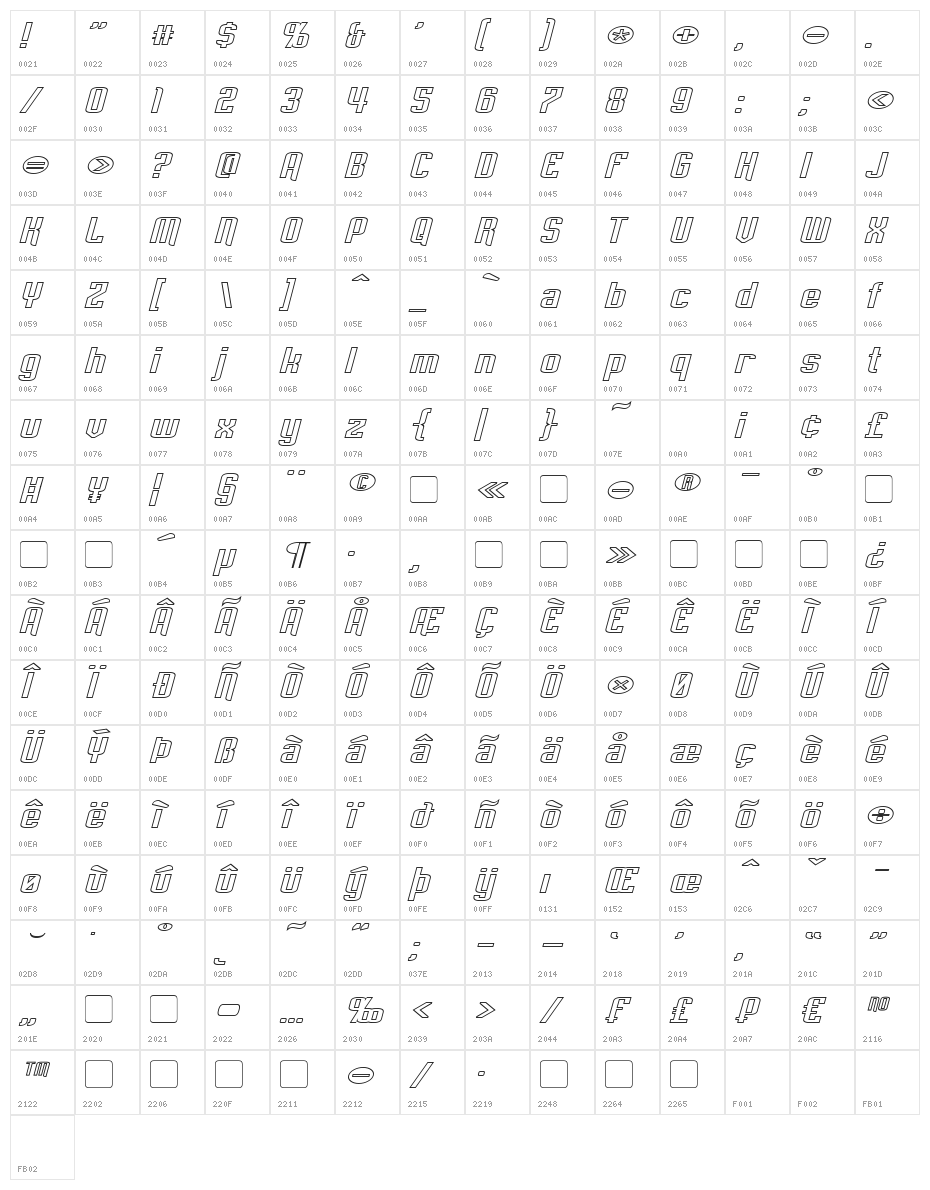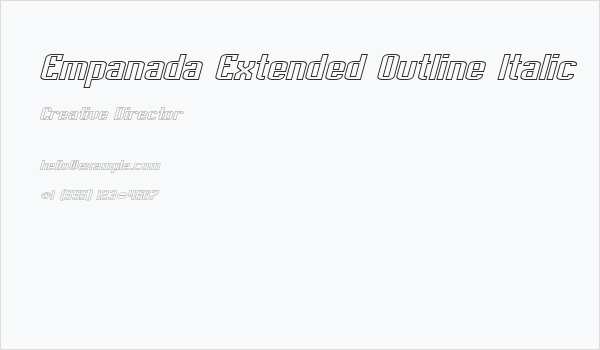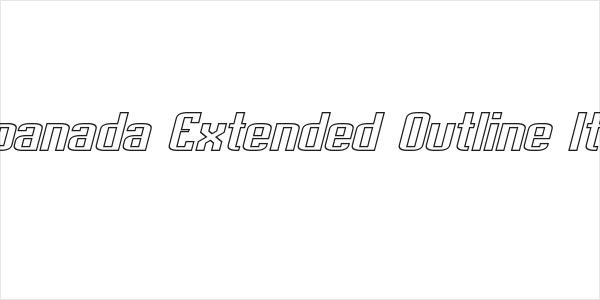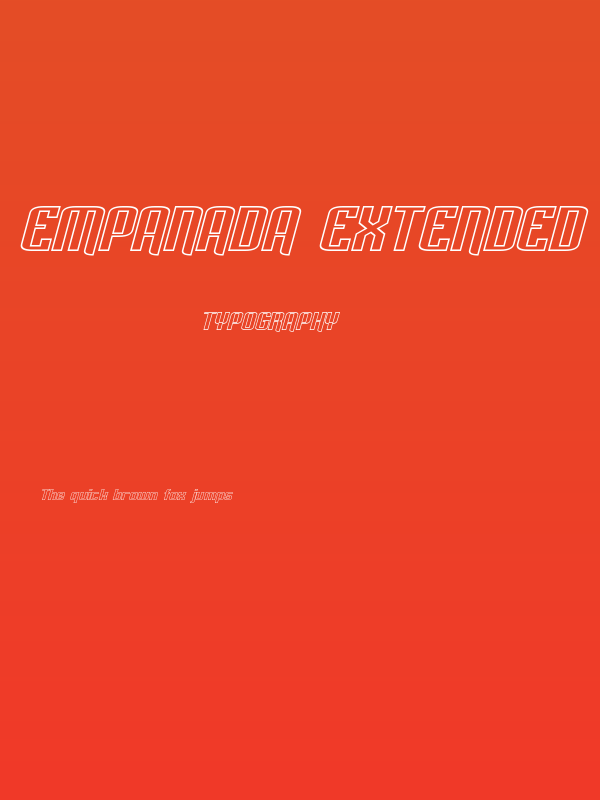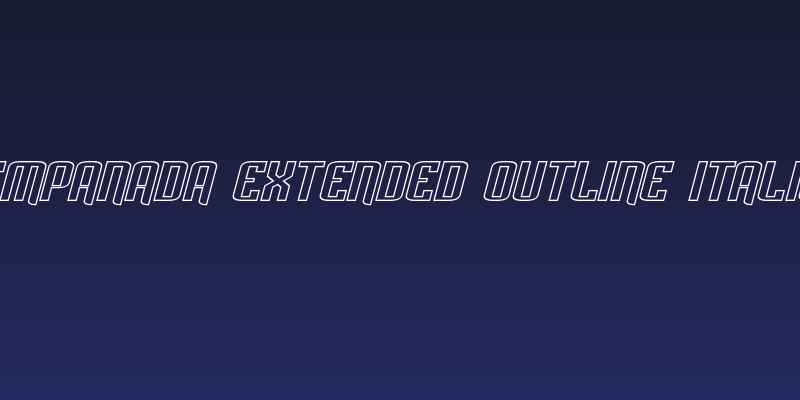
Empanada Extended Outline Italic Font
Empanada Extended Outline Italic Description
This font features a modern, extended outline style with a distinct italic slant, giving it a dynamic and contemporary look. The uppercase and lowercase letters are designed with a consistent geometric structure, providing a sense of uniformity and balance. The numerals and special characters maintain the same bold outline, ensuring readability and visual appeal. The font's extended width and italic angle create a sense of movement, making it suitable for eye-catching designs. Its outline style allows for creative layering and color usage, enhancing its versatility in various design projects.
| Proposed Projects | Ideal for branding, posters, headlines, and any project requiring a bold, modern aesthetic. |